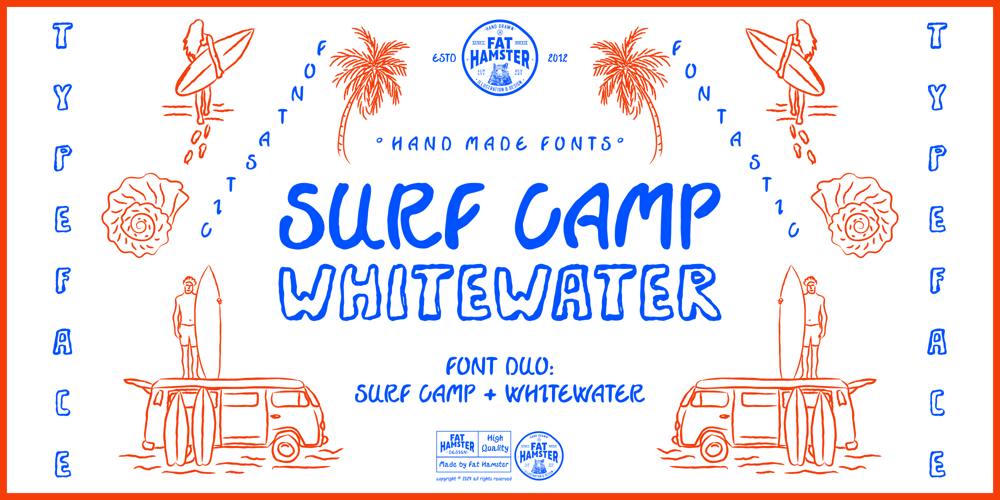
Surf Camp
Surf Camp font
Surf Camp Font Family was designed by Alesia Kutsian, Aliaksei Hvozdzeu and published by Fat Hamster. Surf Camp contains 2 styles and family package options. Surf Camp font & Whitewater font are frivolous, unique hand drawn typefaces in surfing style. The new hand drawn Surf Camp and Whitewater fonts in surfing style capture the essence of the ocean and beach culture with their flowing and dynamic letterforms. The sharp angles and exaggerated curves mimic the movements of waves, while the playful and bold strokes reflect the vibrant energy of surfers. These fonts add a sense of adventure and a laid-back vibe to any design, invoking the spirit of surfing and the thrill of riding the waves.